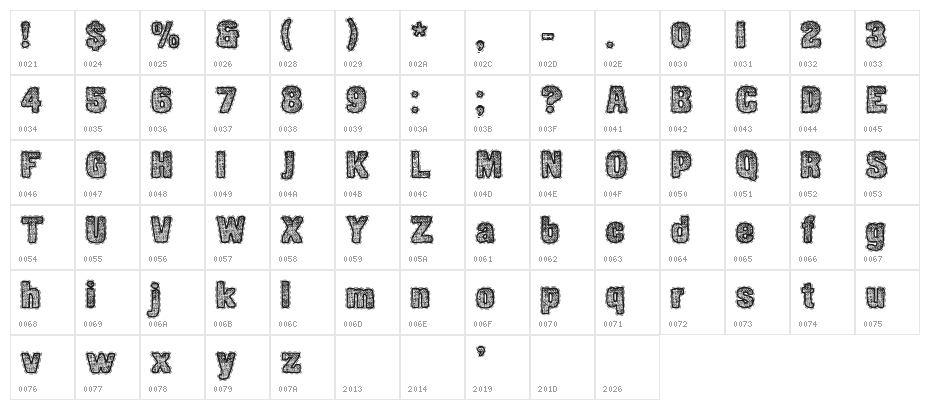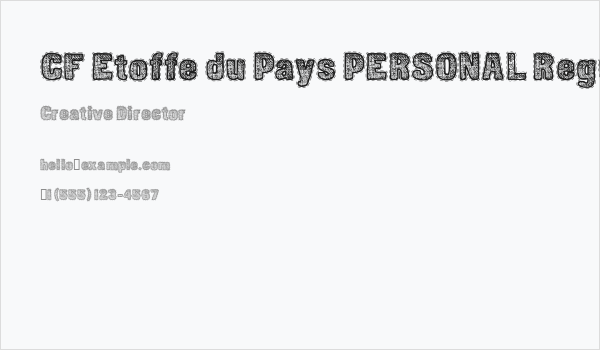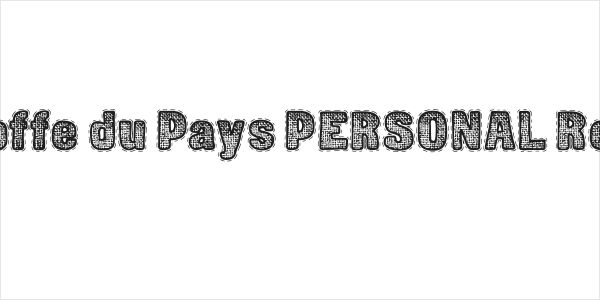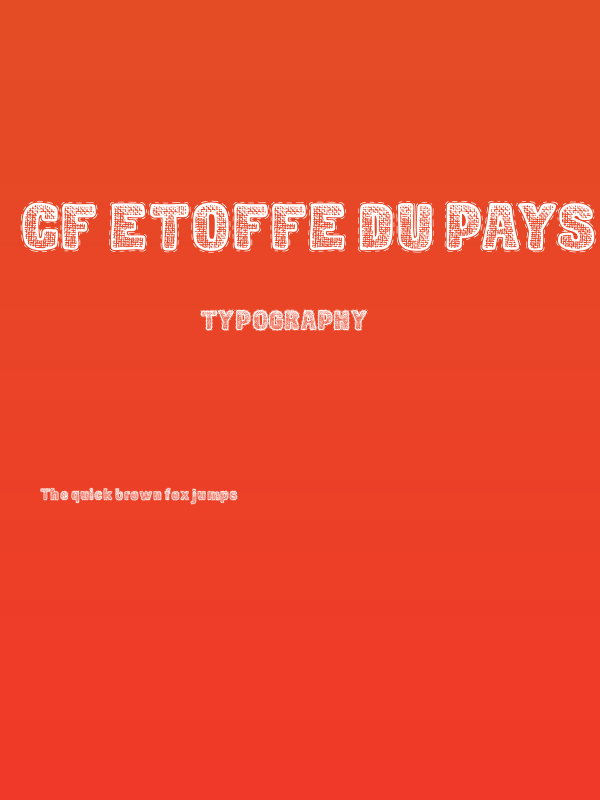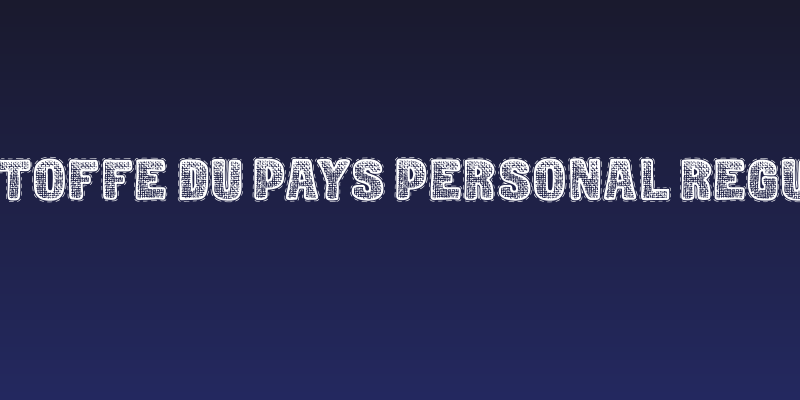
CF Etoffe du Pays PERSONAL Regular Font
CF Etoffe du Pays PERSONAL Regular Description
This font features a textured, fabric-like appearance, giving it a unique and rustic charm. The letters are bold and heavily outlined, creating a strong visual impact. Each character is filled with a pattern that resembles woven material, adding depth and interest. The style is reminiscent of handcrafted designs, making it ideal for projects that require a personal touch. The uppercase and lowercase letters maintain consistent styling, while numbers and special characters are equally detailed, ensuring a cohesive look across all text elements.
Overall StyleRustic, Handcrafted
Proposed ProjectsIdeal for branding, packaging, posters, and any design that benefits from a rustic or handcrafted aesthetic.